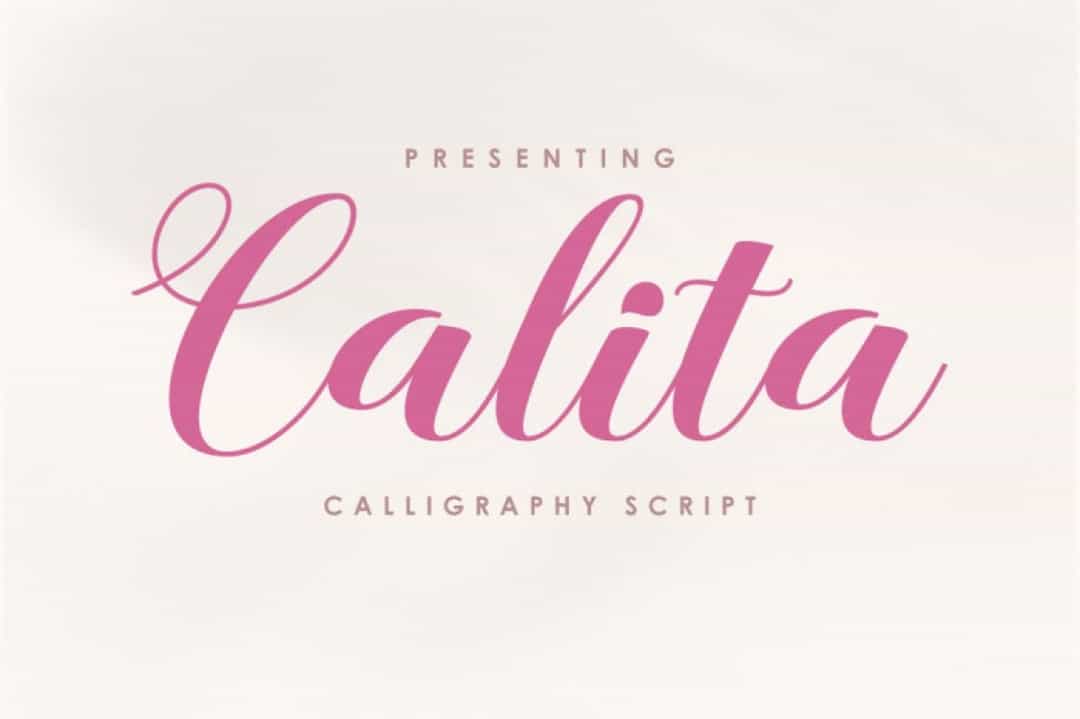
Calita is an innovative, thick and solid fashion Calligraphy script font available to download today! Featuring updated styles for character replacement with specially designed glyphs for this purpose – created using both handwritten ink and fantasy techniques – Calita looks beautiful when applied to designs featuring new Year designs, wedding invitations or branding materials like blog titles, quotations or invitations as well as business cards.